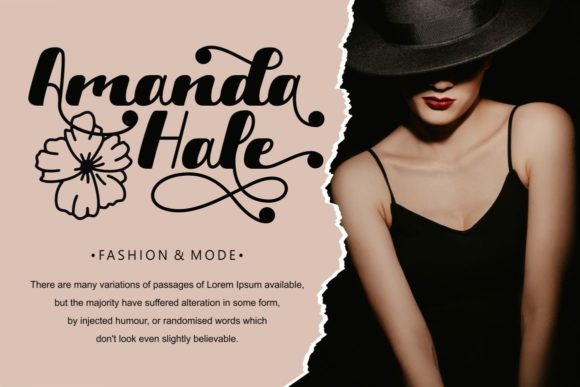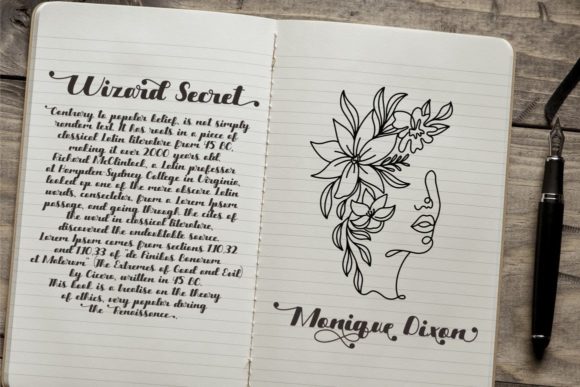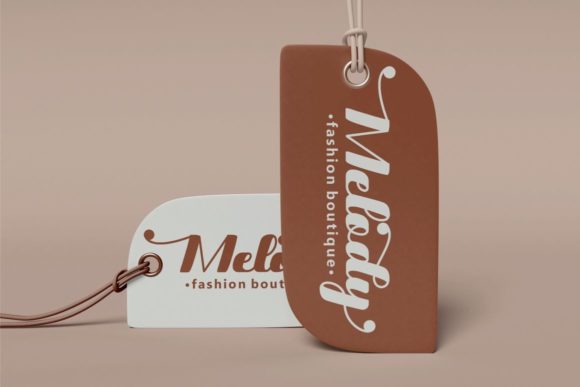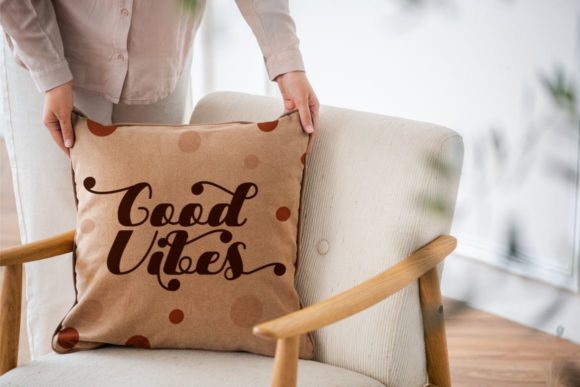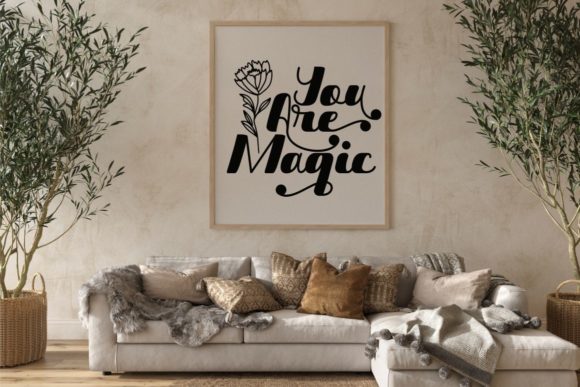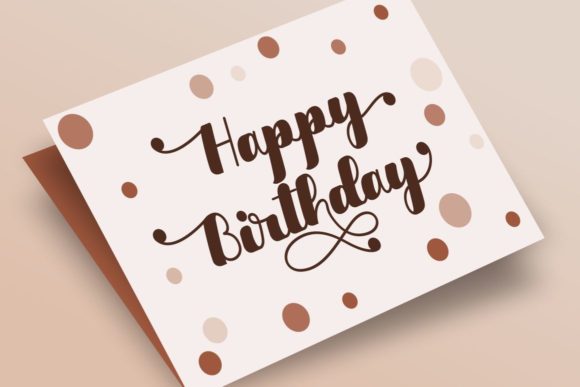
Introduction to Magic Letter Font Font
Fonts play a crucial role in design, and the Magic Letter Font font is a typeface that brings both character and versatility to any project. Whether you’re working on a branding project, a website, or a print design, the Magic Letter Font font offers a unique style that can elevate your work.
Magic Letter is an elegant and dainty handwritten font that features sweet and delicate swashes.
This original look will appeal to a wide range of crafty ideas, from letterheads and titles, to stationery Magic Letter is PUA encoded which means you can access all of the glyphs and swashes with ease.
The Magic Letter Font font is more than just a typeface – it’s a design tool that helps you communicate your message with style and clarity. Its unique character set and versatile design make it suitable for a wide range of applications, from elegant invitations to bold headlines.
With its carefully crafted letterforms and balanced proportions, the Magic Letter Font font ensures readability and visual appeal across all mediums.
The Magic Letter Font font stands out with its unique design, exceptional readability, and versatility across various design applications.